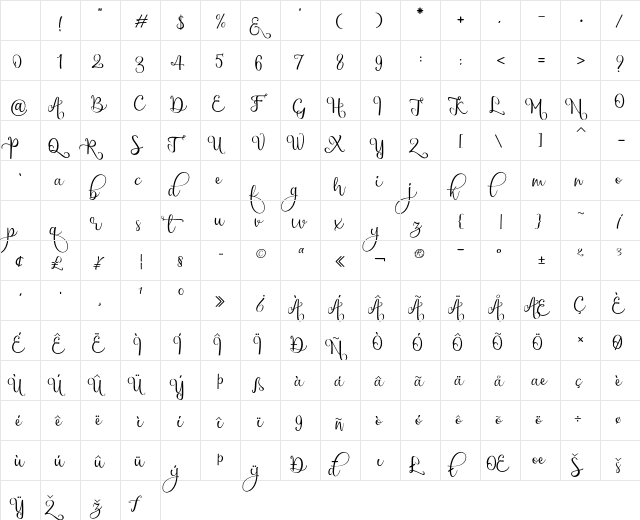
Complete chinthia white Regular glyph index. Displaying only characters natively supported by chinthia white Regular font.
chinthia white is a composed and adaptable typeface that performs quietly and consistently across a wide range of design contexts.